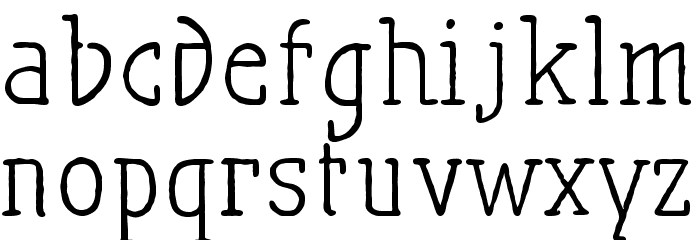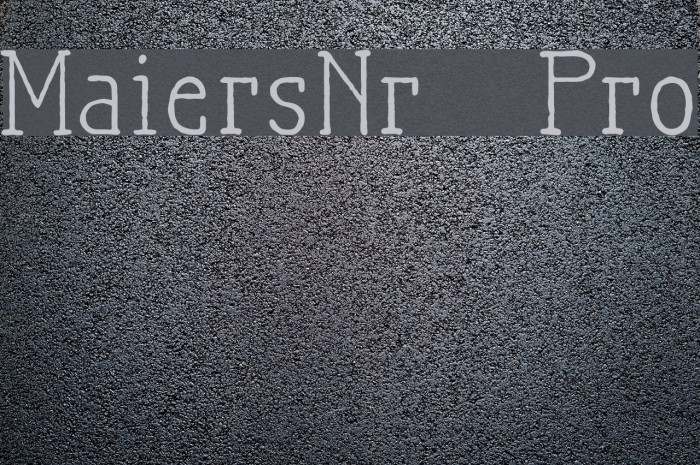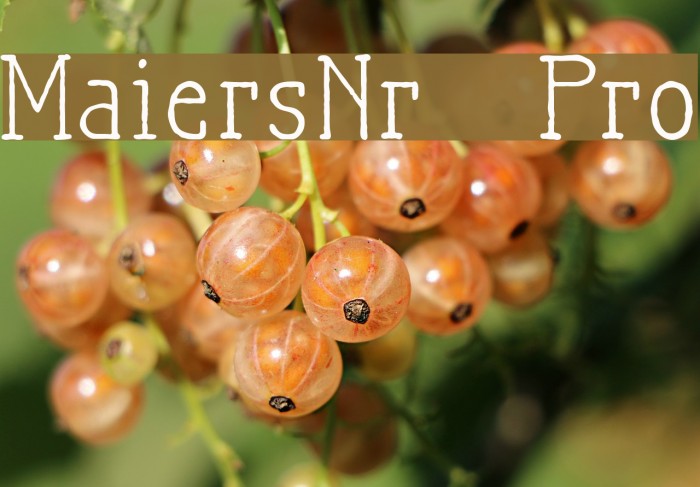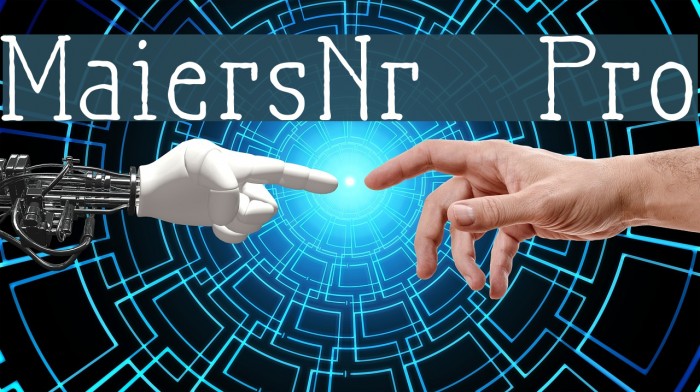
MaiersNr.21Pro Font
This font features a unique blend of classic and modern elements, characterized by its distinct, slightly irregular strokes that give it a hand-drawn appearance. The uppercase letters are tall and narrow, with subtle curves and varying line thickness that add a touch of elegance and sophistication. The lowercase letters maintain a consistent style, with rounded edges and a playful, yet refined look. The numerals and special characters are crafted with the same attention to detail, ensuring a cohesive visual experience. This font's overall aesthetic is both artistic and readable, making it suitable for a variety of design applications.
A distinctive, hand-drawn style font with elegant, irregular strokes.
- Proposed Projects: Ideal for artistic projects, branding, invitations, and editorial design.
- Overall Style: Artistic
- Use Case: Logos, Invitations, Editorial design